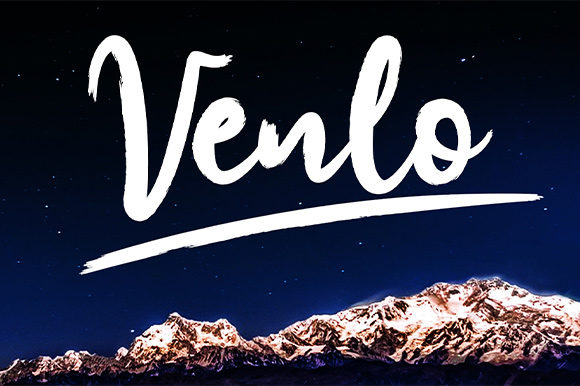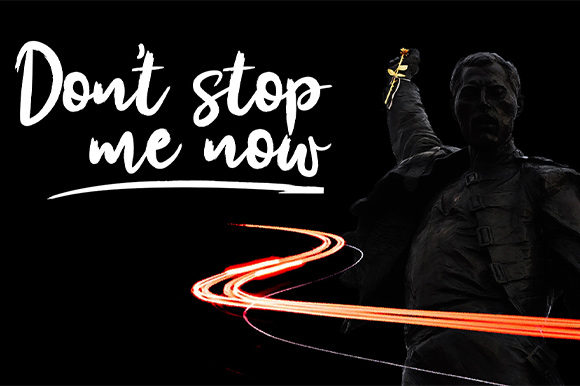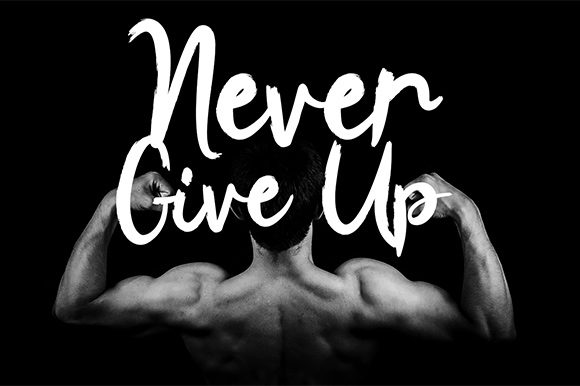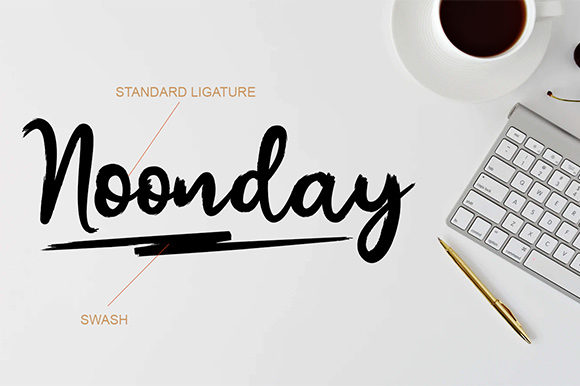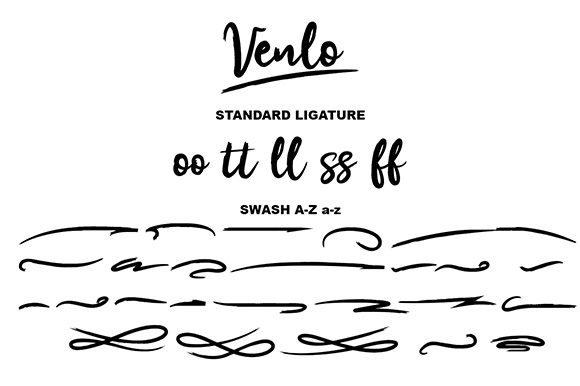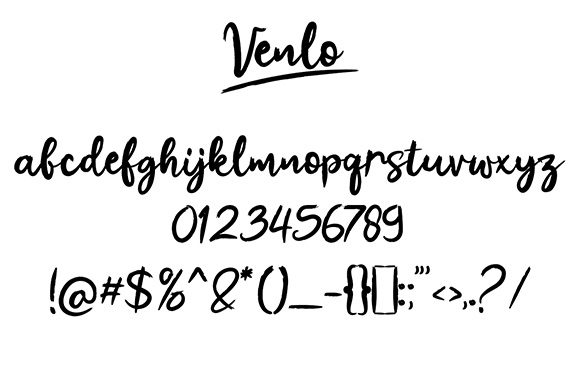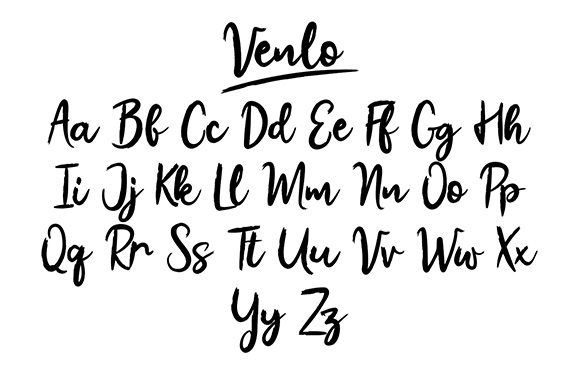
HomeScript FontsVenlo Font Script Fonts Venlo Font FacebookXPinterestWhatsApp Venlo Font Poster 2 Venlo Font Poster 3 Venlo Font Poster 4 Venlo Font Poster 5 Venlo Font Poster 6 Venlo Font Poster 7 Venlo Font Poster 8 About Venlo Font Venlo is a simple, yet authentic script font that will deliver any message with sincerity and style. DOWNLOAD ON CREATIVE FABRICAThis font is sold and delivered by Creative Fabrica. Font Canyon may earn a commission if you buy through this link. People also explored Modiz Font Spooky Vintage Font Cotton Font Midnight Font Ragat Font Black Spores Font Squad Font Grotte Font Anthena Font 368 0 TagsVenlo Font Previous articleMarlyn FontNext articleBloemist Font LEAVE A REPLY Cancel reply Comment: Please enter your comment! Name:* Please enter your name here Email:* You have entered an incorrect email address! Please enter your email address here Website: Save my name, email, and website in this browser for the next time I comment. Personal Use Free Scarlove Personal Use Free Read more about this font A New Nattyla Personal Use Free Read more about this font Fat Max Personal Use Free Read more about this font Breakaway Personal Use Free Read more about this font BLOG Best Fonts for T-Shirt Design – Top 2025 Picks In 2025, t-shirt design has become more than just fashion—it's a form of self-expression. Whether you're... 5 Fonts That Will Dominate Design Trends in 2026 Top 10 Handwritten Fonts That Elevate Your Designs Transform Your Website: Elevate Your Typography with 7 Best Web Font Generators